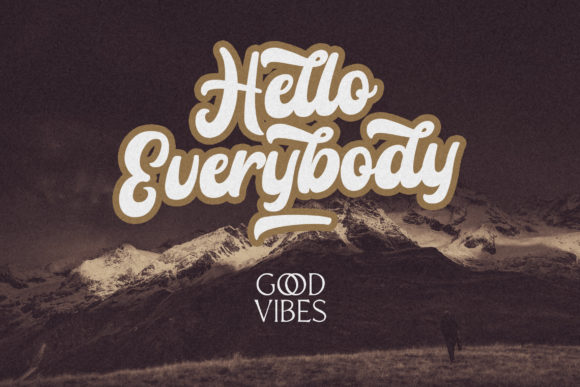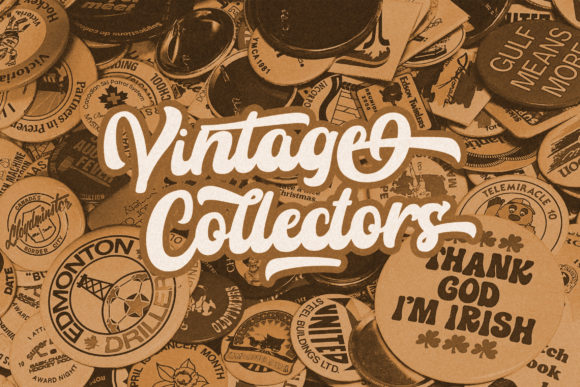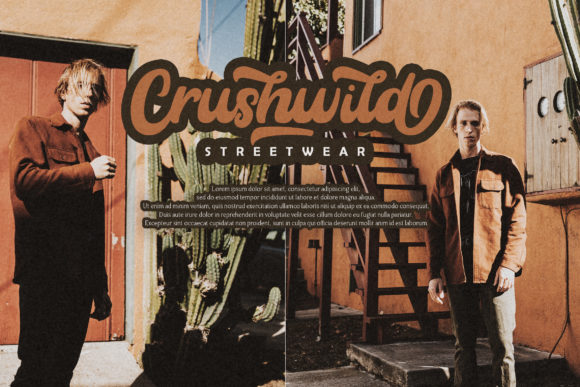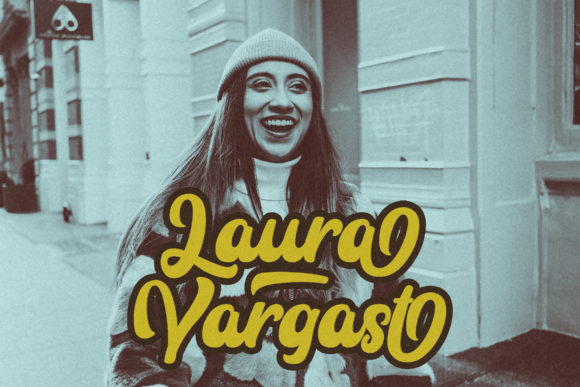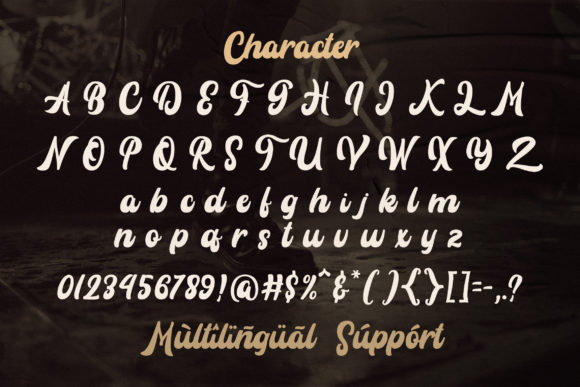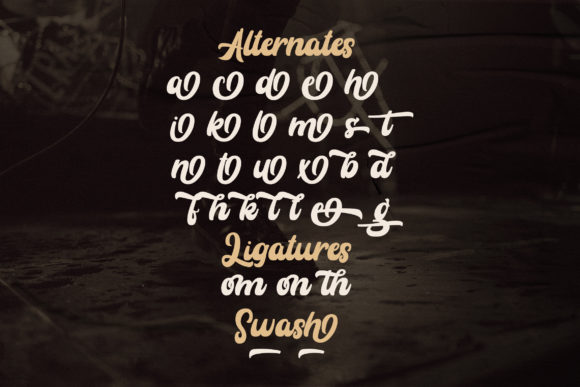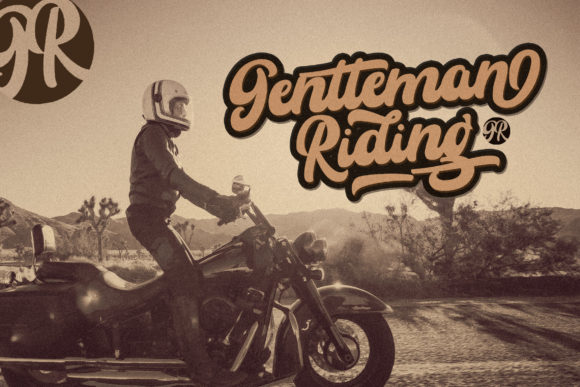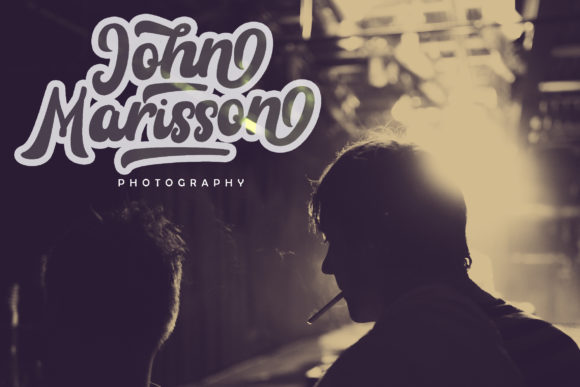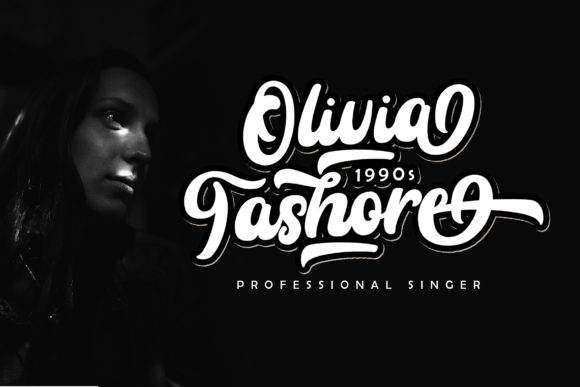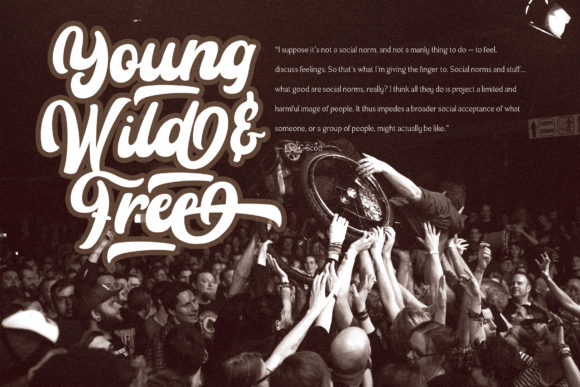
Rayhue Font
About Rayhue Font
Rayhue feels playfully nostalgic and delivers an incredible vintage aesthetic. Use it to add that special retro touch to any design idea you can think of!